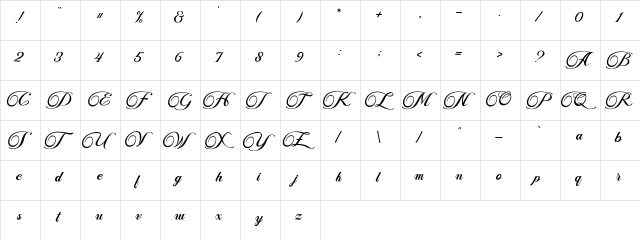
Fisha Script Regular
| Foundry | Febri Creative |
| Designer | Febri Creative 2019 |
Design Context for Fisha Script Typeface
Fisha Script flows with the natural rhythm of handwritten lettering, making it ideal for designs that call for warmth and personal expression.
Font Pairing: Combine Fisha Script with a simple geometric sans for maximum contrast — the tension between flowing curves and clean structure is a classic typographic pairing.
Pro Tip: Use Fisha Script for short runs of text — names, titles, or taglines. Extended body copy in script faces tires the eye quickly.